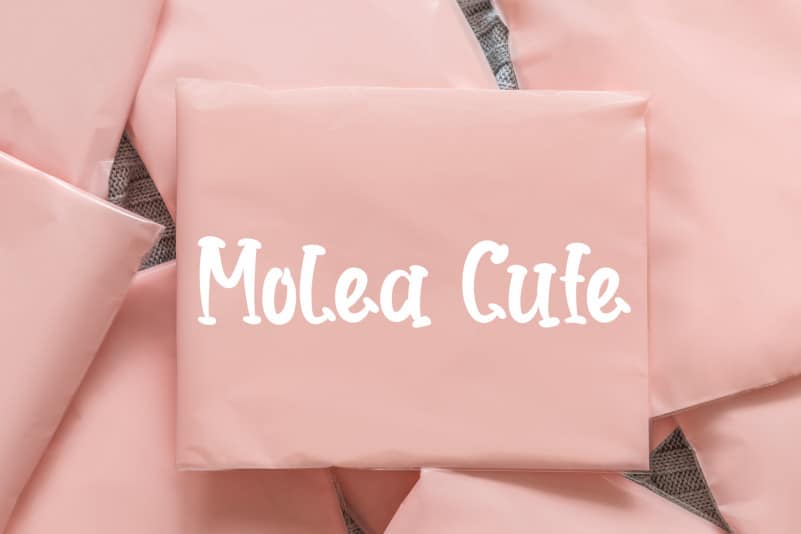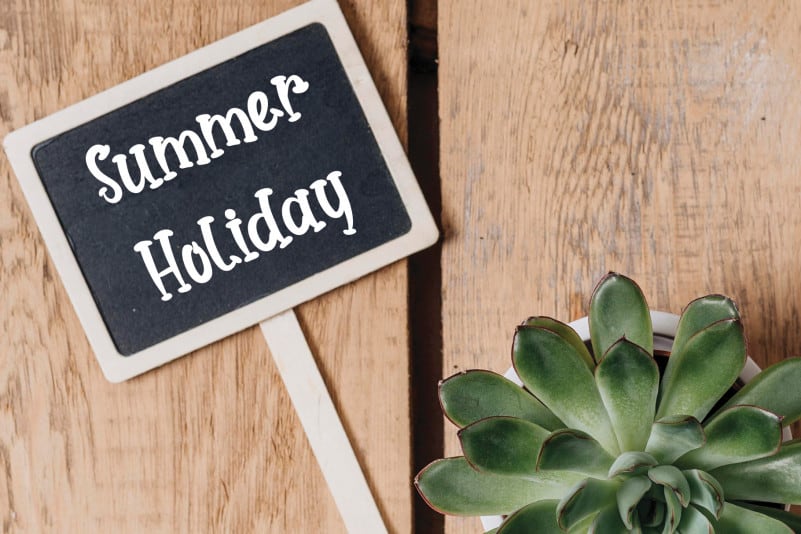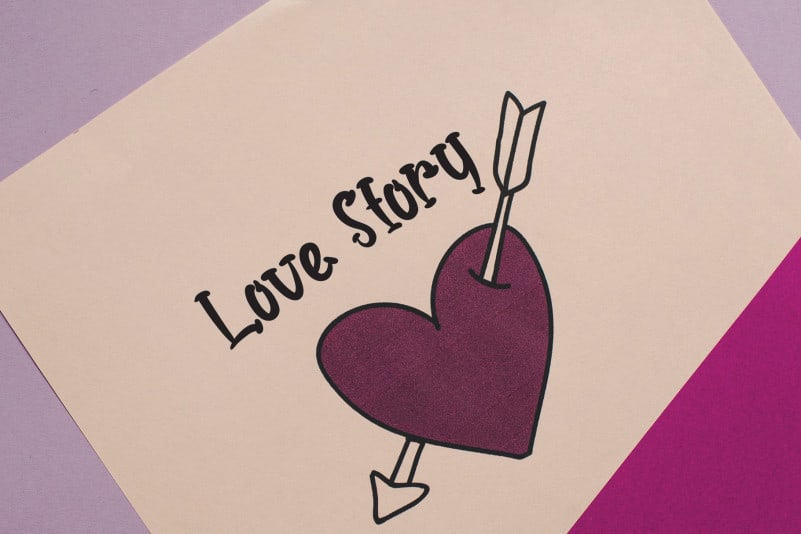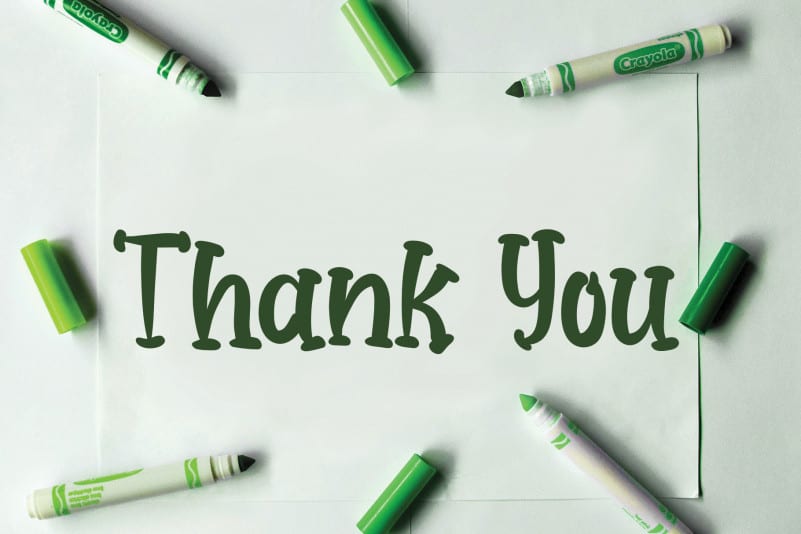
Home Flower Display Font
Home Flower Display Font is a fun and quirky serif font. Incredibly unique and a bit spooky, this font will be the perfect choice to any casual design idea you can think of!